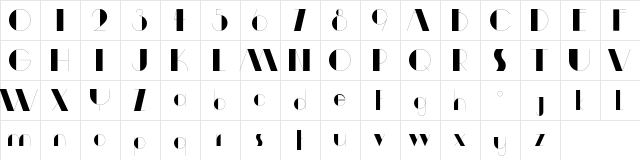
noodles - www.noodlepark.it Regular
| Foundry | jonathan calugi - happyloverstown.eu |
| Designer | jonathan calugi |
noodles - www.noodlepark.it is a composed and adaptable typeface that performs quietly and consistently across a wide range of design contexts.